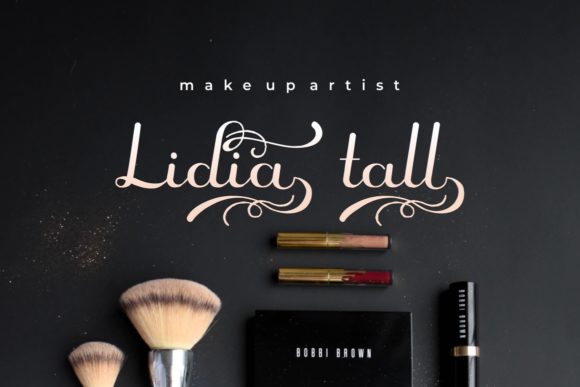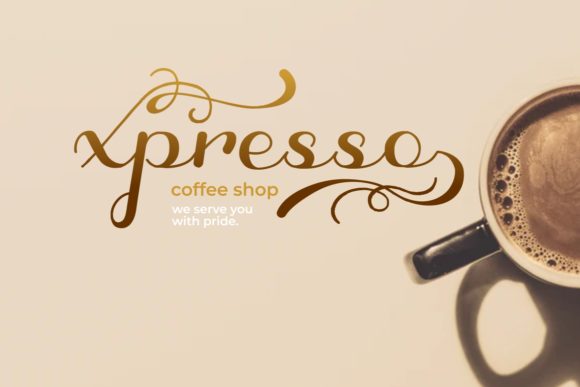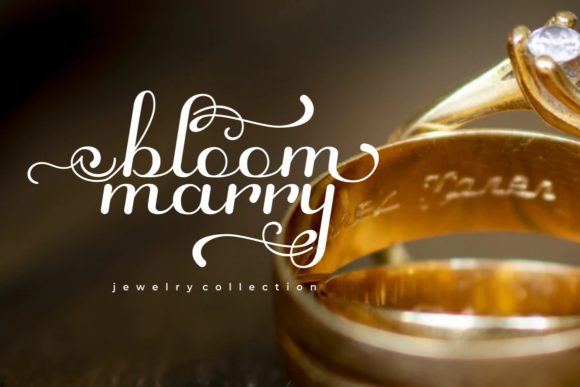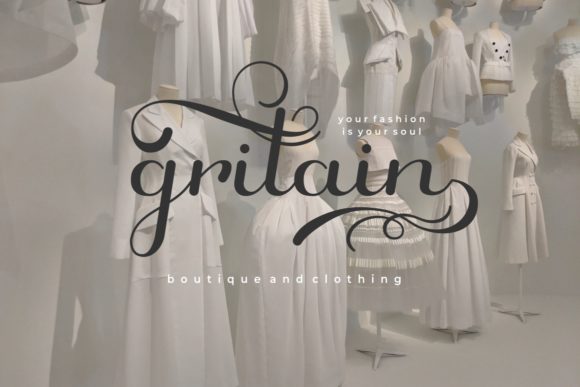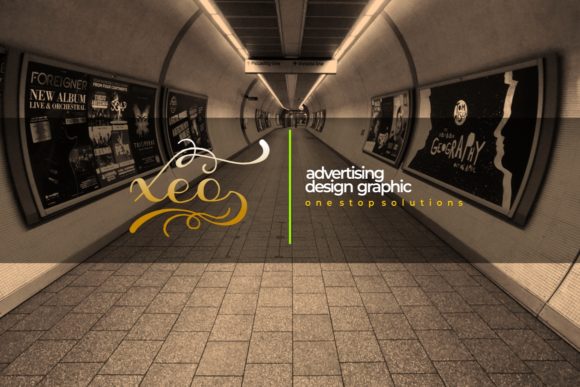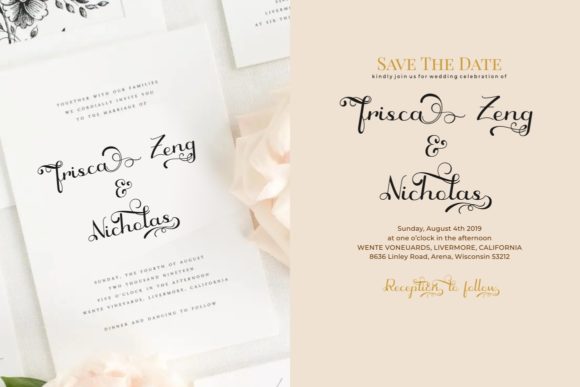
Discover the Elegance of Armyta Font: Elevate Your Designs to New Heights
Are you on the hunt for a font that exudes sophistication, elegance, and a touch of modern flair? Look no further than Armyta Font, a stunning handwritten typeface that is sure to capture your heart. In this article, we’ll dive into the world of Armyta, exploring its unique features, design inspiration, and the endless possibilities it offers for designers and crafters alike.
The Story Behind Armyta Font
Armyta is an exquisite handwritten font, masterfully designed to become a true favorite among designers and typography enthusiasts. Its creator has skillfully blended traditional calligraphic influences with contemporary elements, resulting in a font that feels both classic and fresh. With Armyta, you can add a touch of luxury and sophistication to your projects, making it perfect for a wide range of applications, from branding and advertising to packaging and digital media.
What Makes Armyta Font So Special?
So, what sets Armyta apart from other fonts? Here are just a few of its standout features:
- Classy Calligraphic Influences: Armyta’s design is rooted in traditional calligraphy, giving it an air of elegance and refinement.
- Contemporary and Fresh: Despite its classic influences, Armyta feels modern and up-to-date, making it perfect for designers who want to create something new and exciting.
- Handwritten Charm: Armyta’s handwritten nature gives it a unique, personal touch that is sure to resonate with audiences.
- Versatility: With its clean lines and flowing curves, Armyta can be used in a wide range of contexts, from headings and titles to body text and quotes.
Using Armyta Font in Your Designs
One of the best things about Armyta is its versatility. Here are just a few ideas for using this beautiful font in your designs:
- Branding and Logo Design: Armyta’s elegant, sophisticated feel makes it perfect for logos, business cards, and other branding materials.
- Wedding and Event Design: Add a touch of romance and whimsy to your wedding invitations, menus, and other event materials with Armyta.
- Packaging Design: Use Armyta to create eye-catching packaging that stands out on store shelves.
- Digital Media: Armyta is perfect for digital media, including social media graphics, blog posts, and website headers.
Tips for Getting the Most Out of Armyta Font
To truly make Armyta shine in your designs, here are a few tips to keep in mind:
- Experiment with Font Sizes: Armyta looks great in a variety of font sizes, so don’t be afraid to experiment to find the perfect fit for your design.
- Play with Color: Armyta’s elegant lines and curves look stunning in a range of colors, from classic black and white to bold brights and pastels.
- Mix and Match with Other Fonts: Armyta pairs beautifully with other fonts, so feel free to get creative and try out different combinations.
| Font Name | Armyta Font |
| Author | yunitaecy |